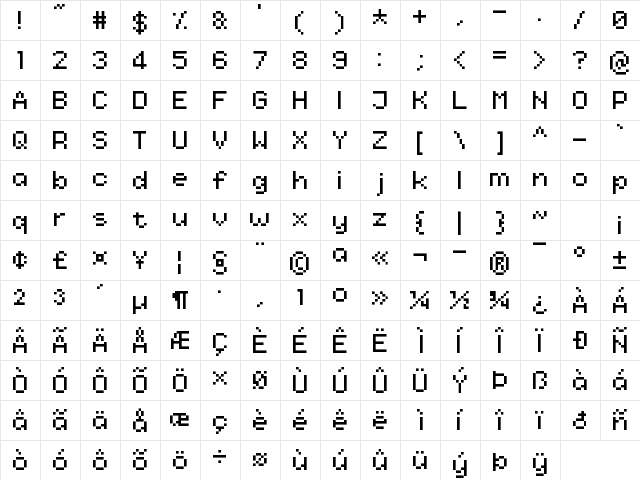
Nineteen Ninety Three Regular
| Designer | GameDevDan |
Design Context for Nineteen Ninety Three Typeface
Nineteen Ninety Three takes a measured approach to typography — its balanced proportions and neutral character make it a reliable workhorse for both digital and print work.